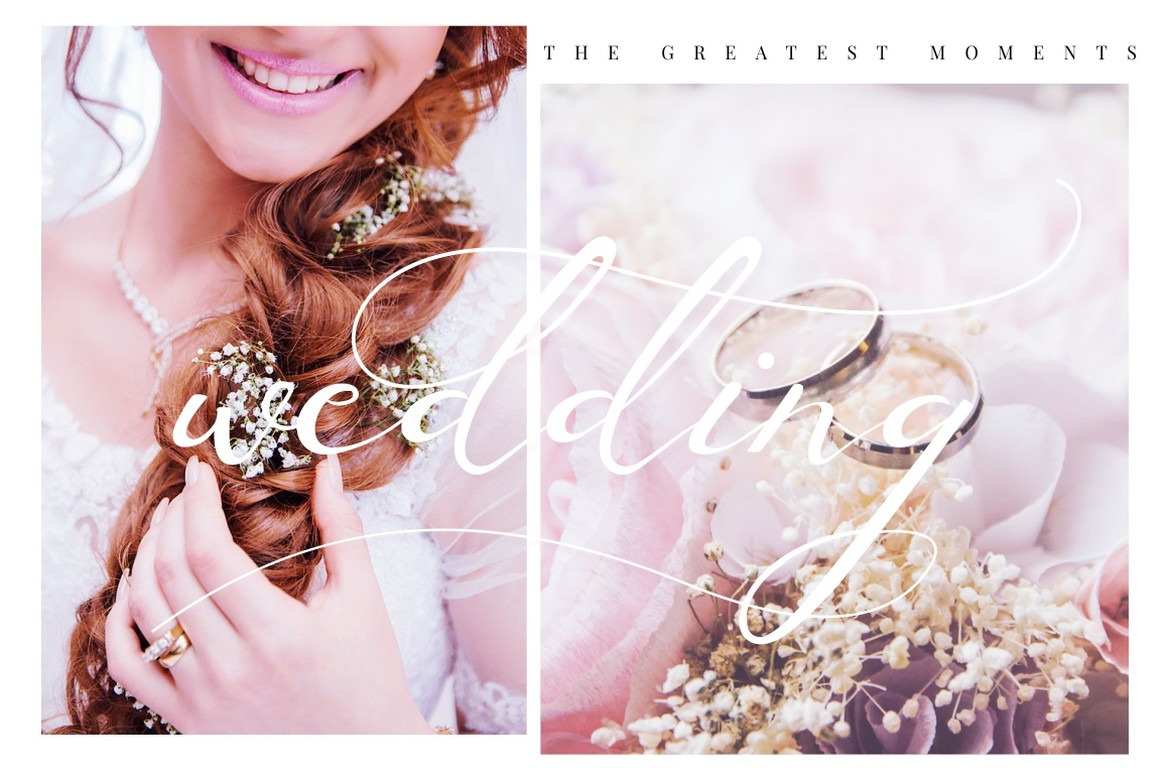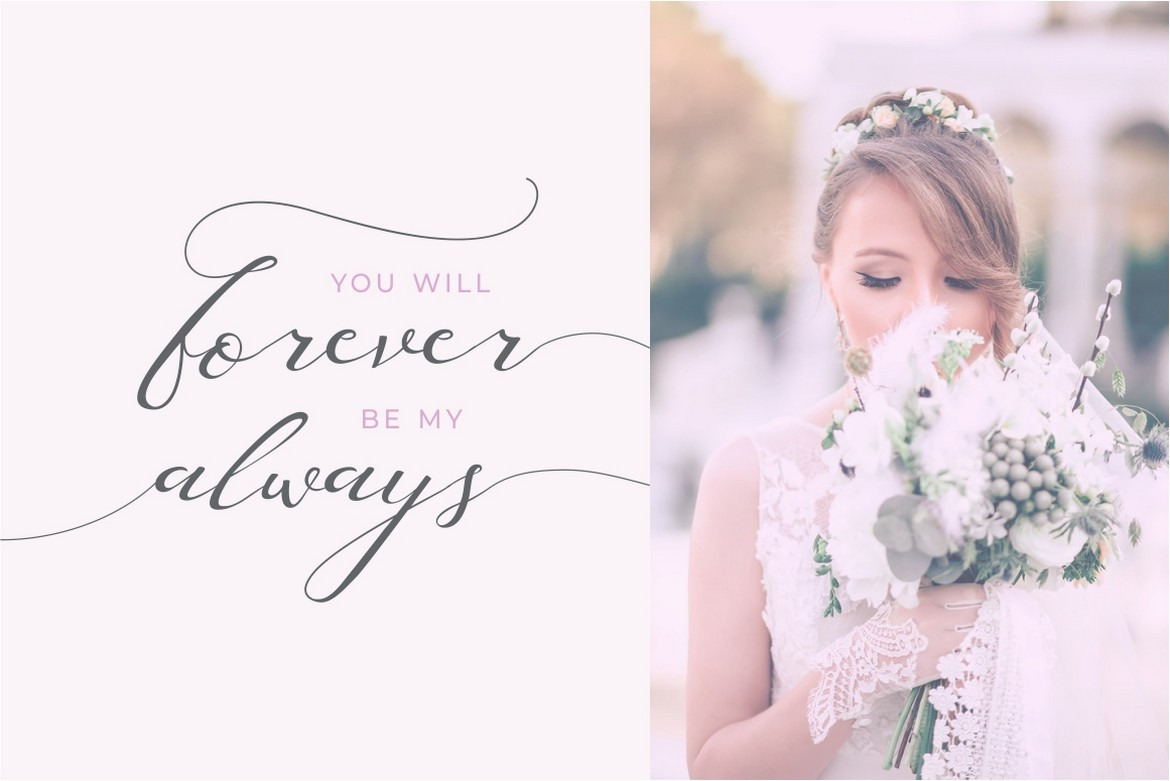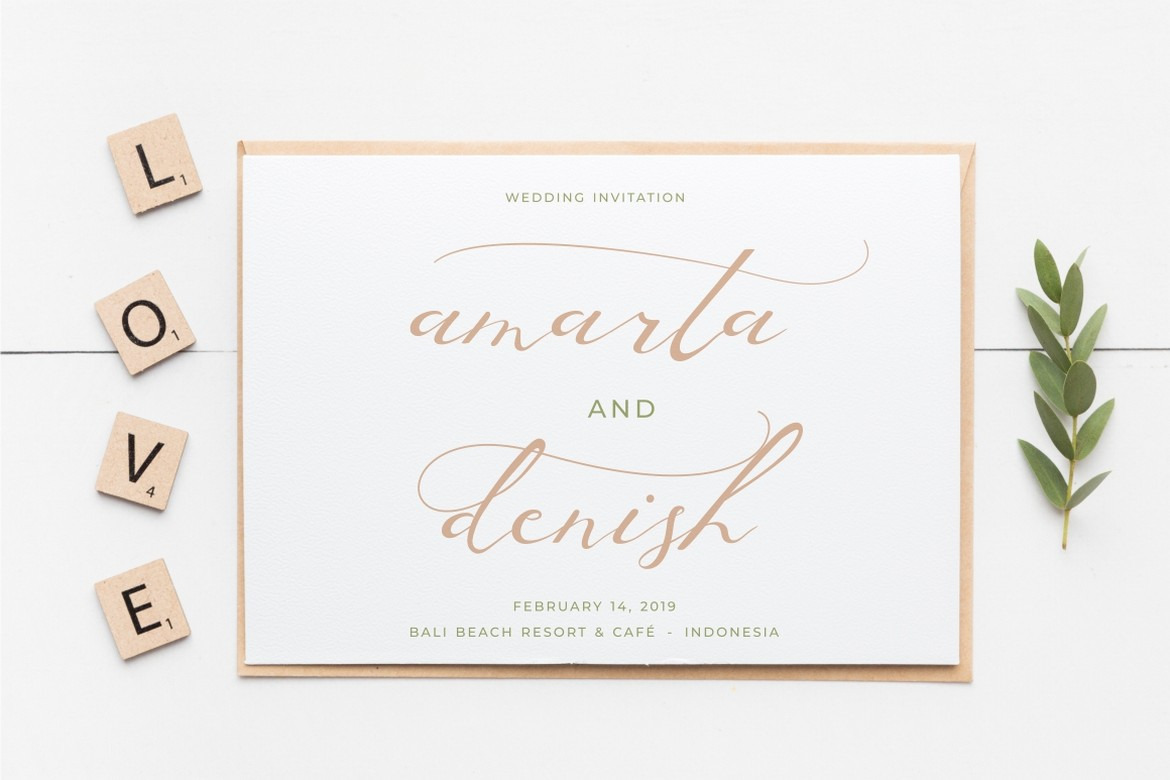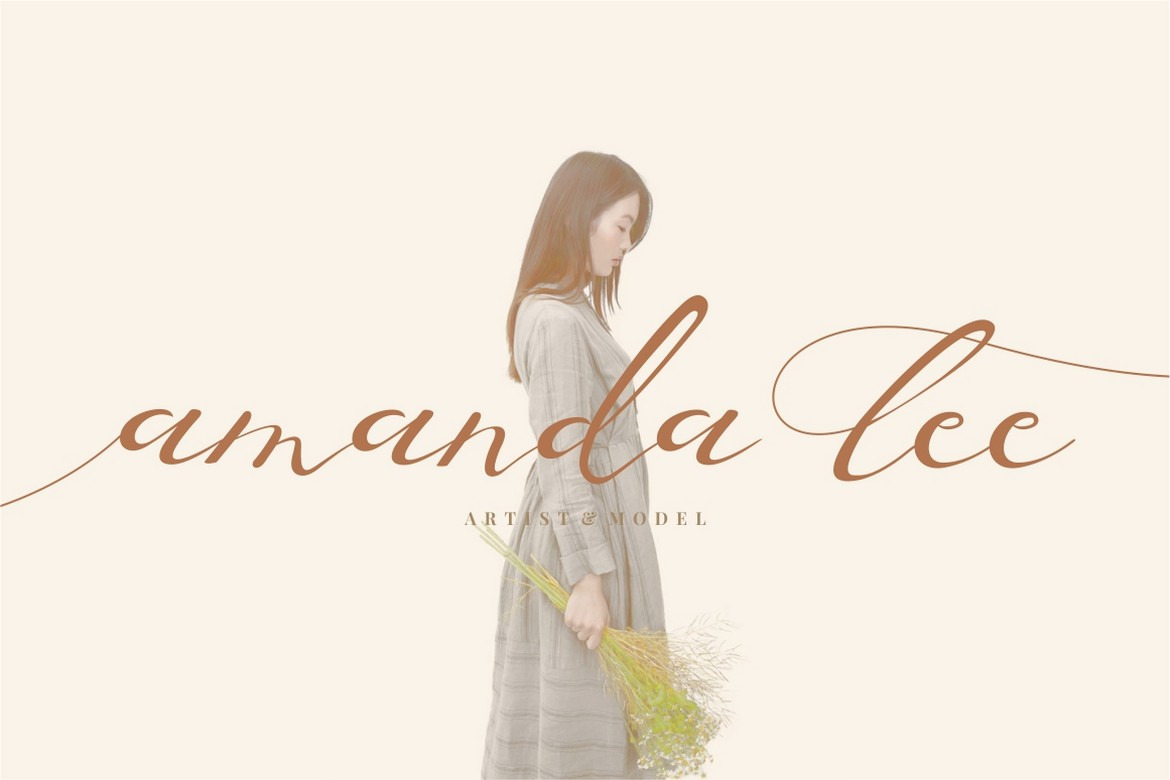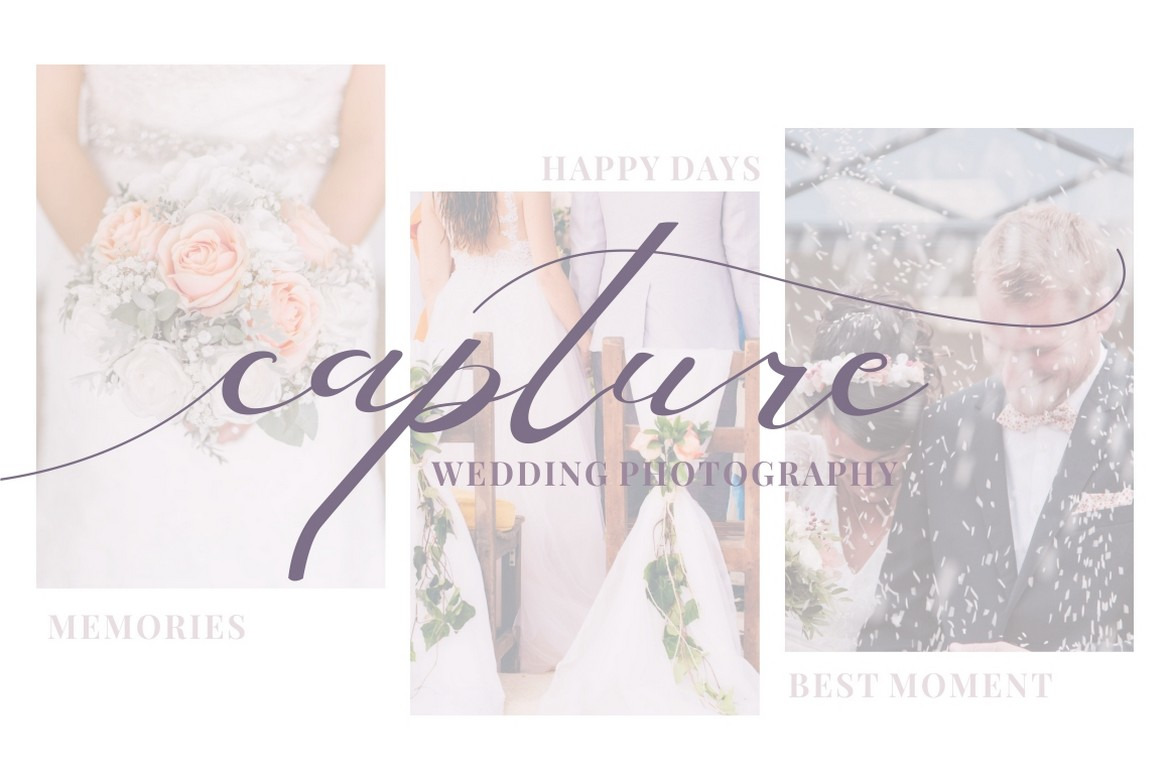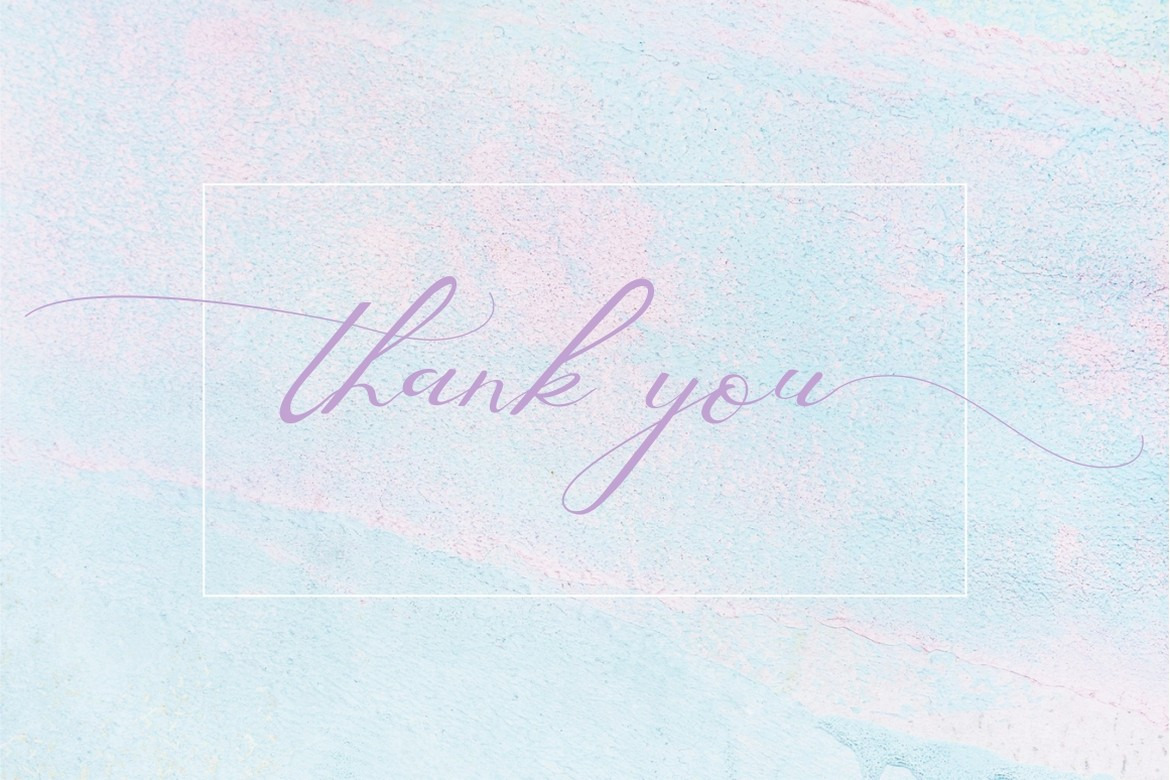
Lusya - Elegant Script Font
Lusya
Introducing a elegance script font called " Lusya ", a casual and beautiful calligraphy font with a modern touch.
Come with open type feature with a lot of alternates, its help you to make great lettering.
Lusya best uses for wedding invitation, invitations, signature, typography lettering, branding, label, poster, logos, quotes, product packaging, header, merchandise, social media & greeting cards and many more.
This font is also support multi language.
- Alternate
- Number, Punctuation And Symbols
- Multilanguage Support.